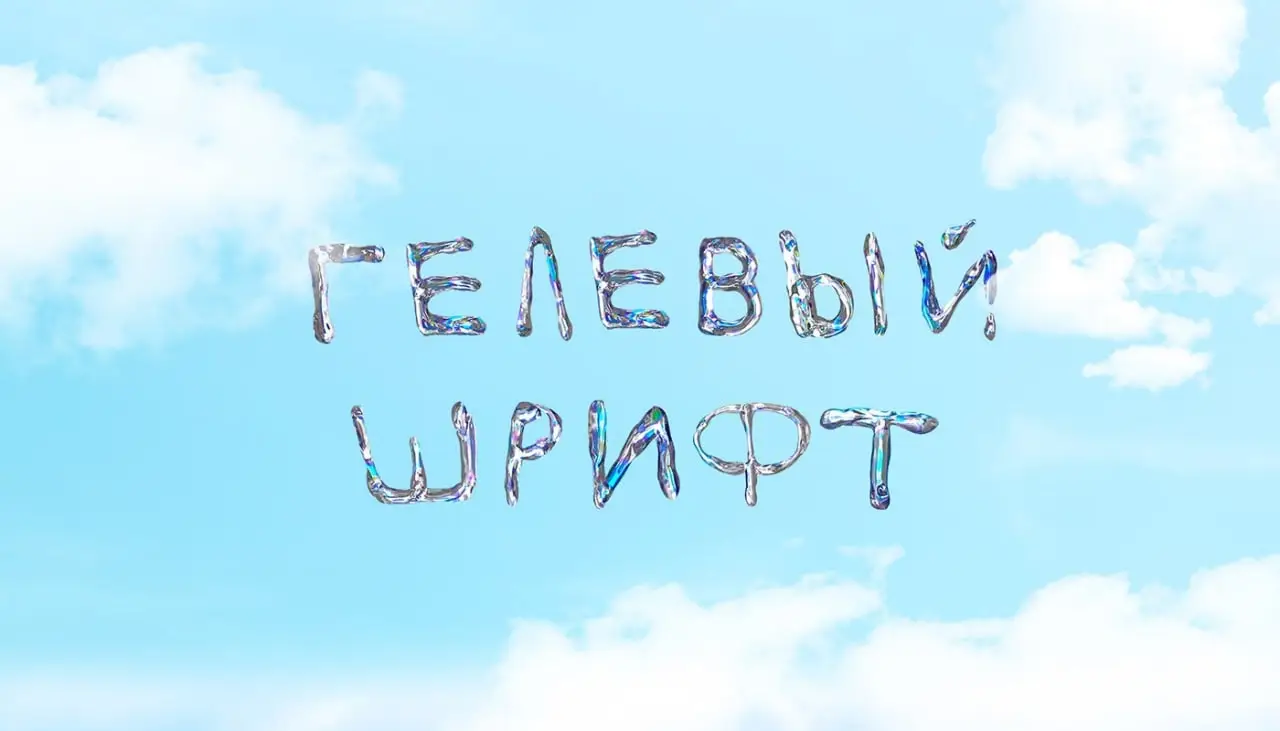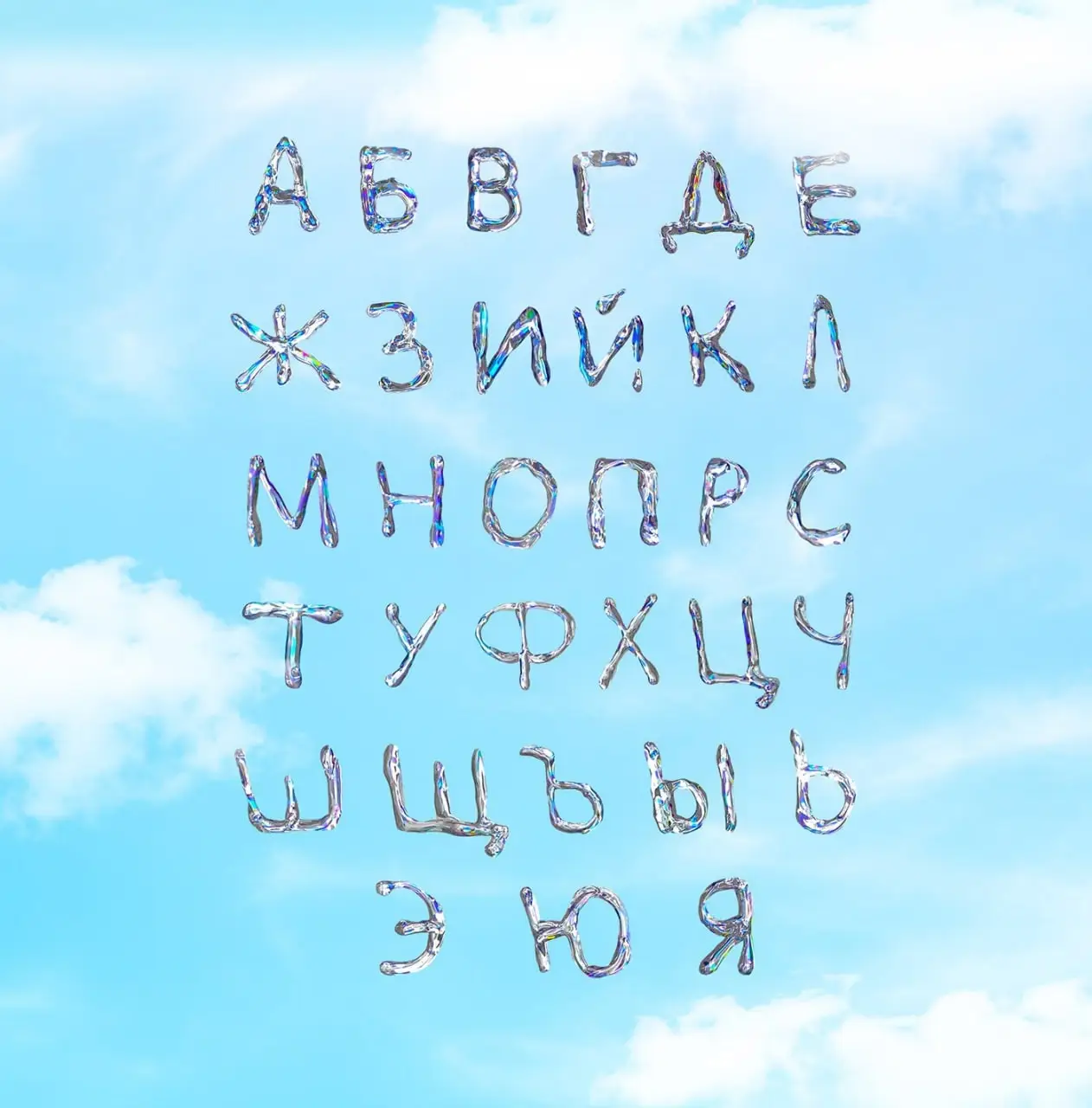
Introducing the Майя Разумкова-Gel Font, a unique typeface that brings a playful yet elegant touch to your designs. This font features a modern gel-like appearance, perfect for a variety of creative projects.
- Stylish gel-inspired design
- Supports both uppercase and lowercase letters
- Includes special characters and punctuation
- Weights: Regular, Bold
- Ideal for branding, logos, and promotional materials
- Great for web design and user interfaces
- Perfect for print projects like posters and flyers
Майя Разумкова-Gel Font